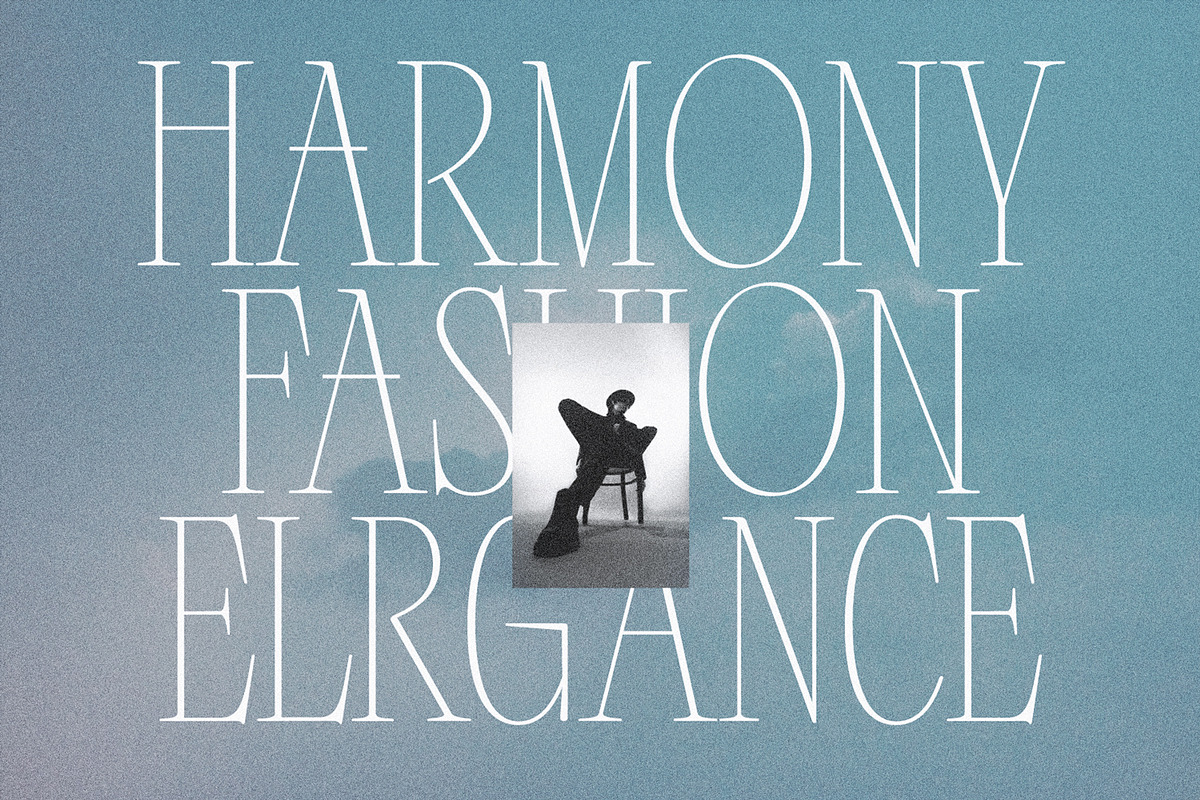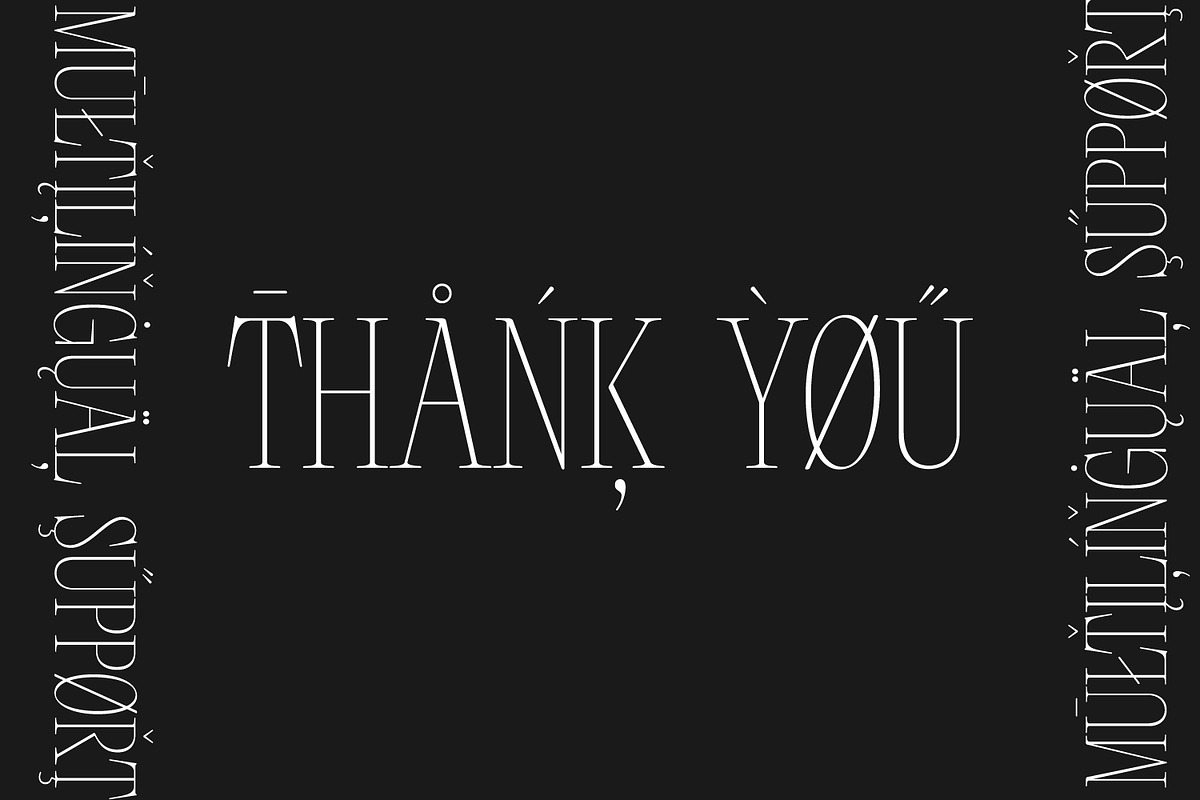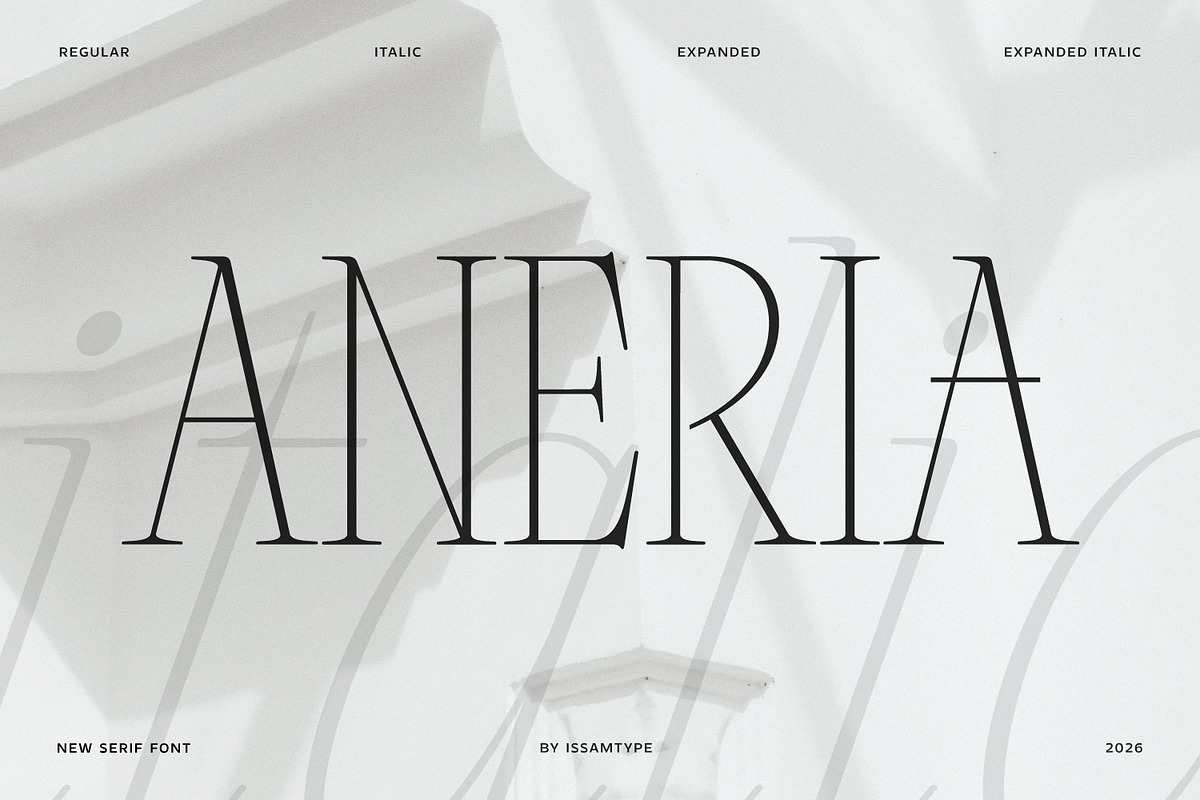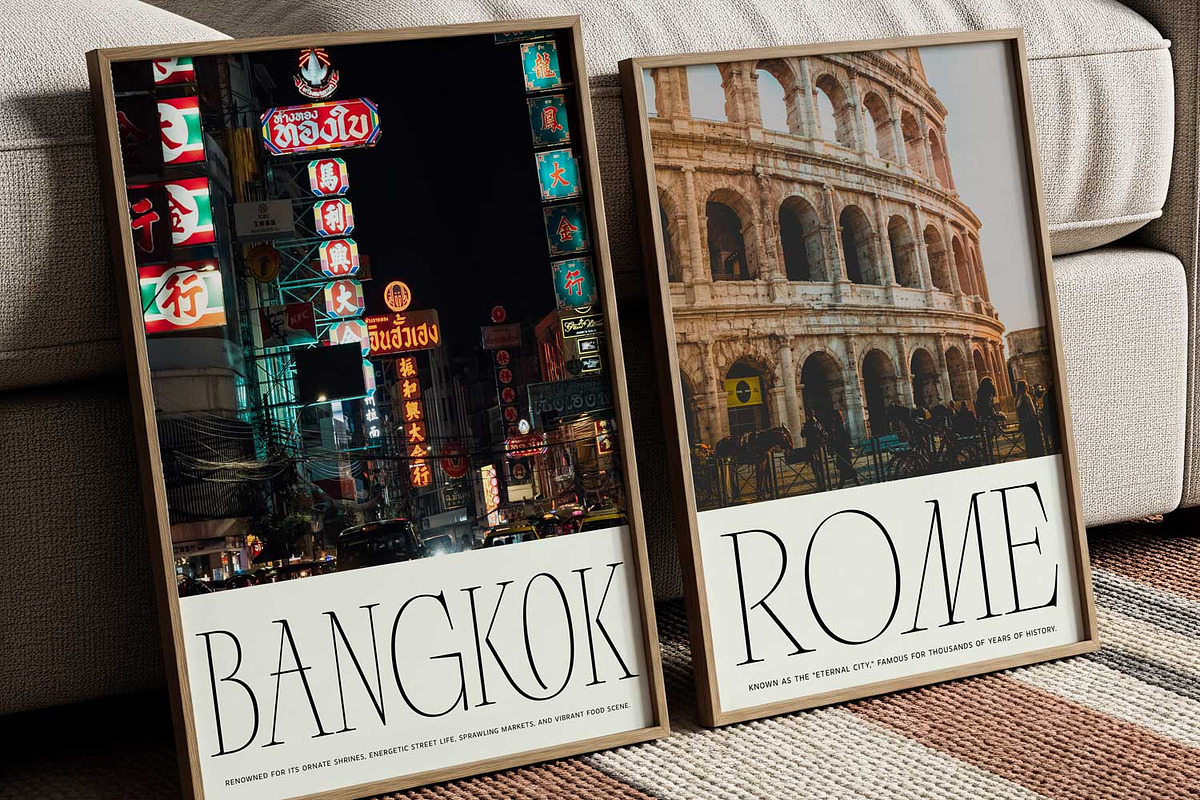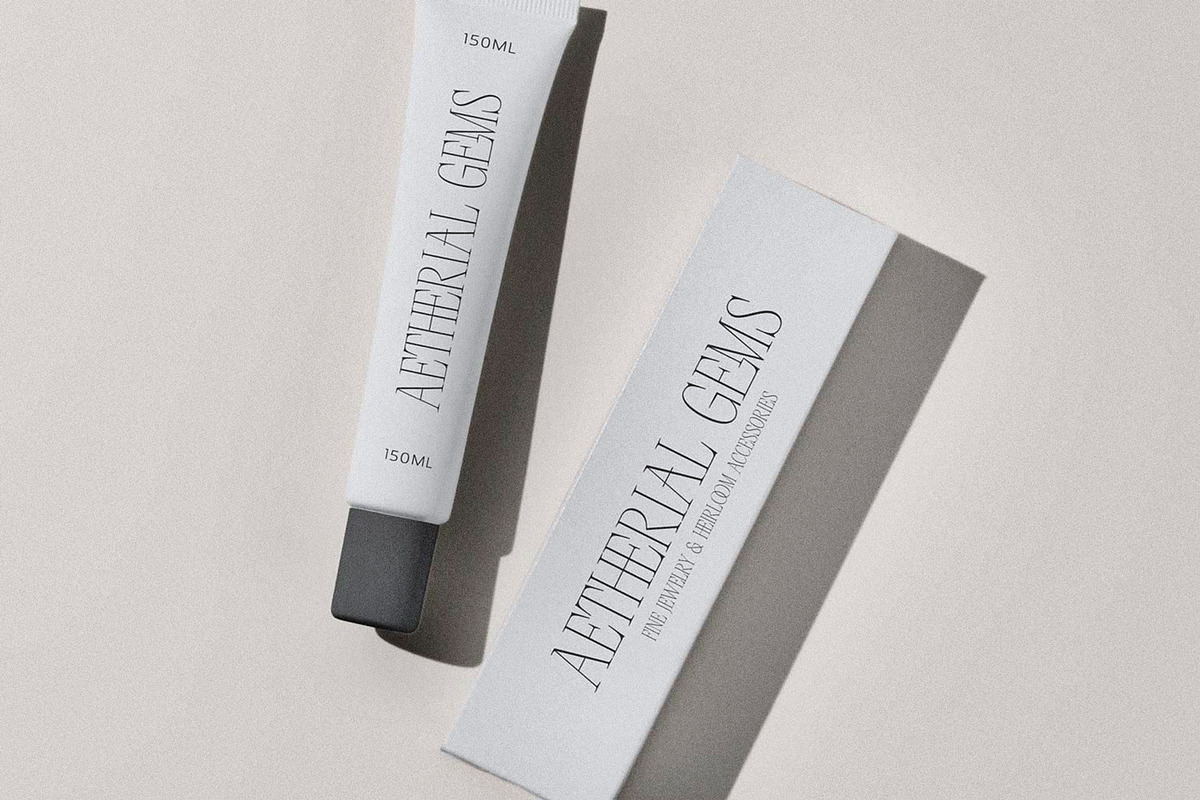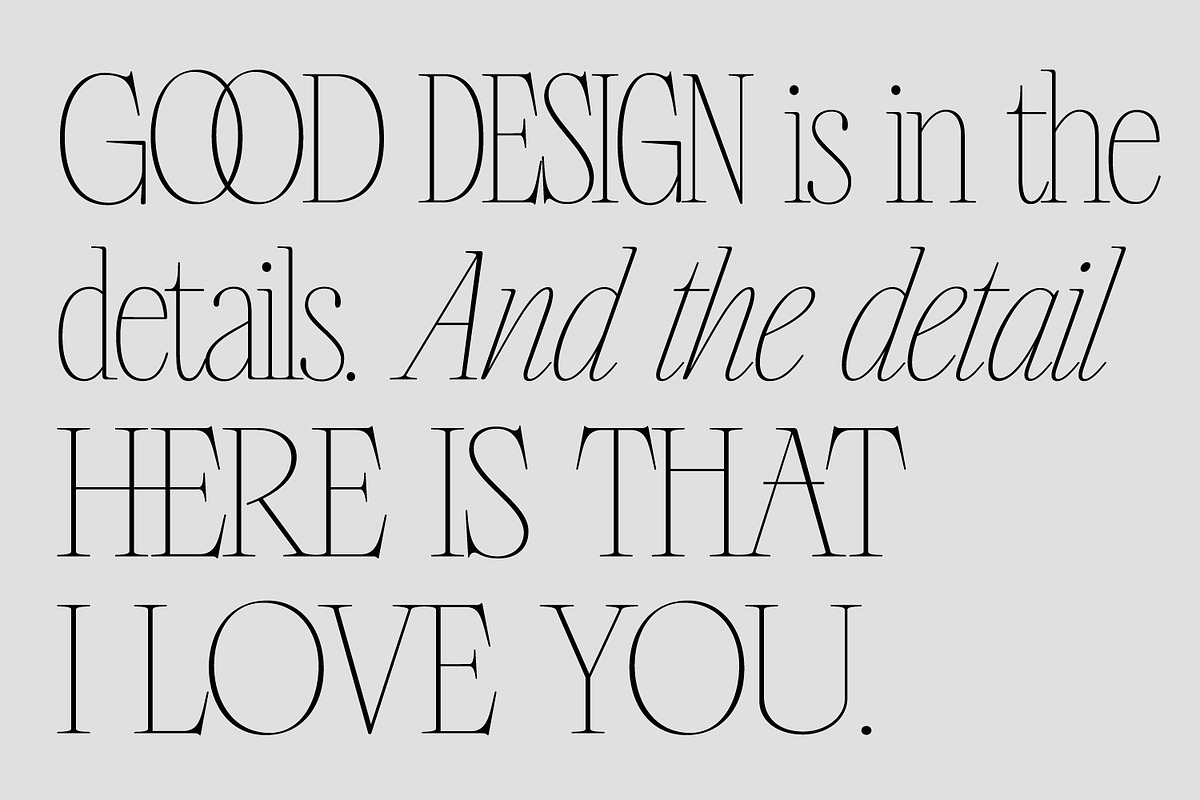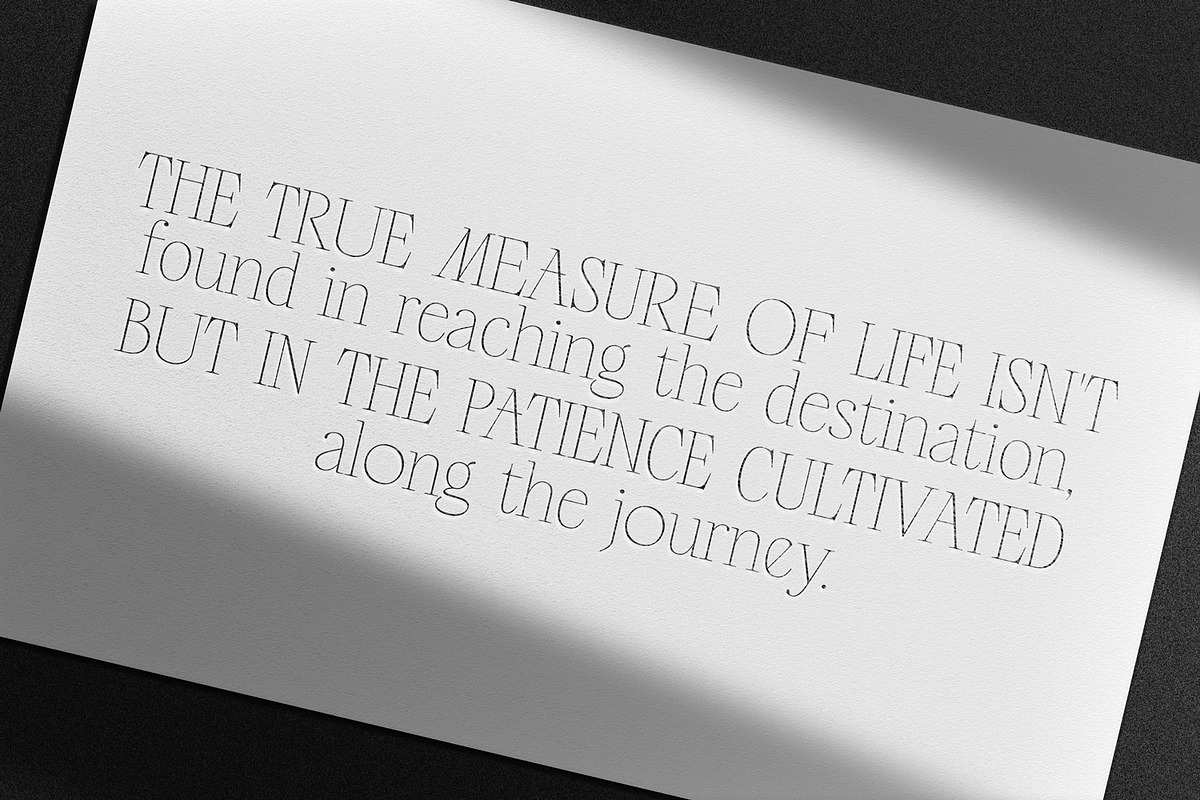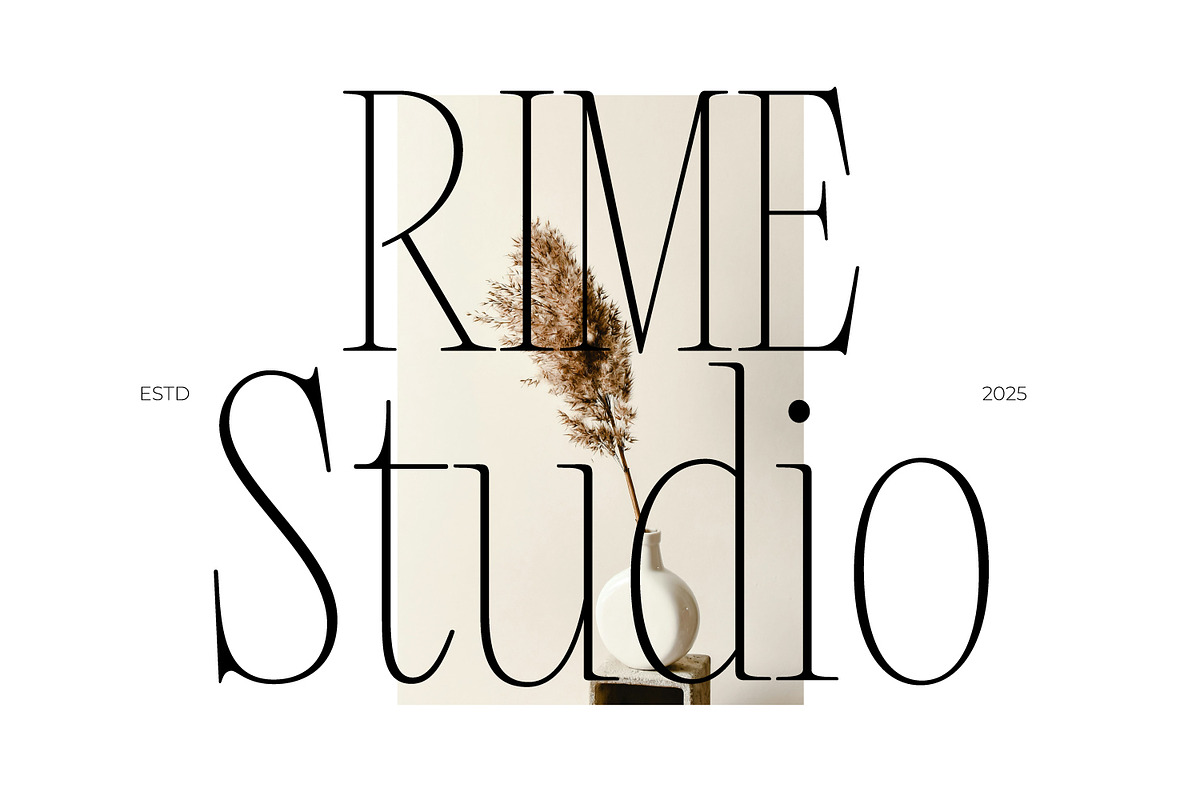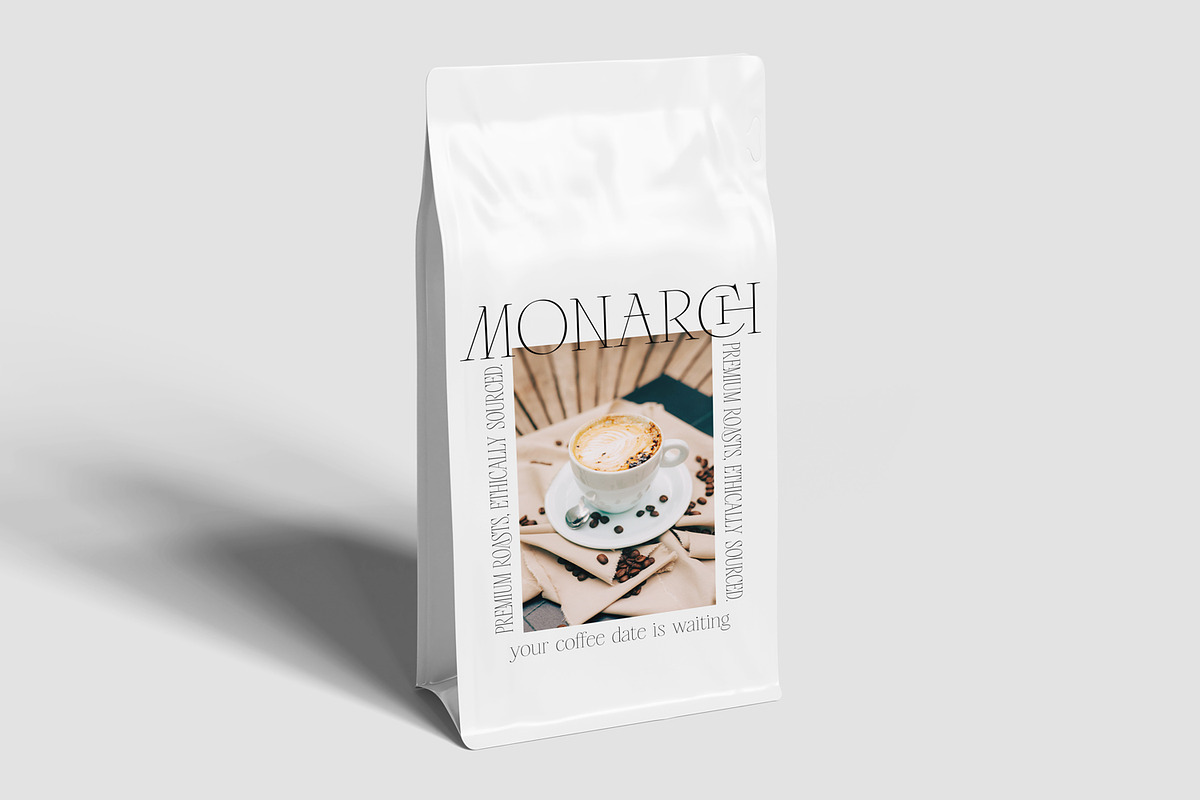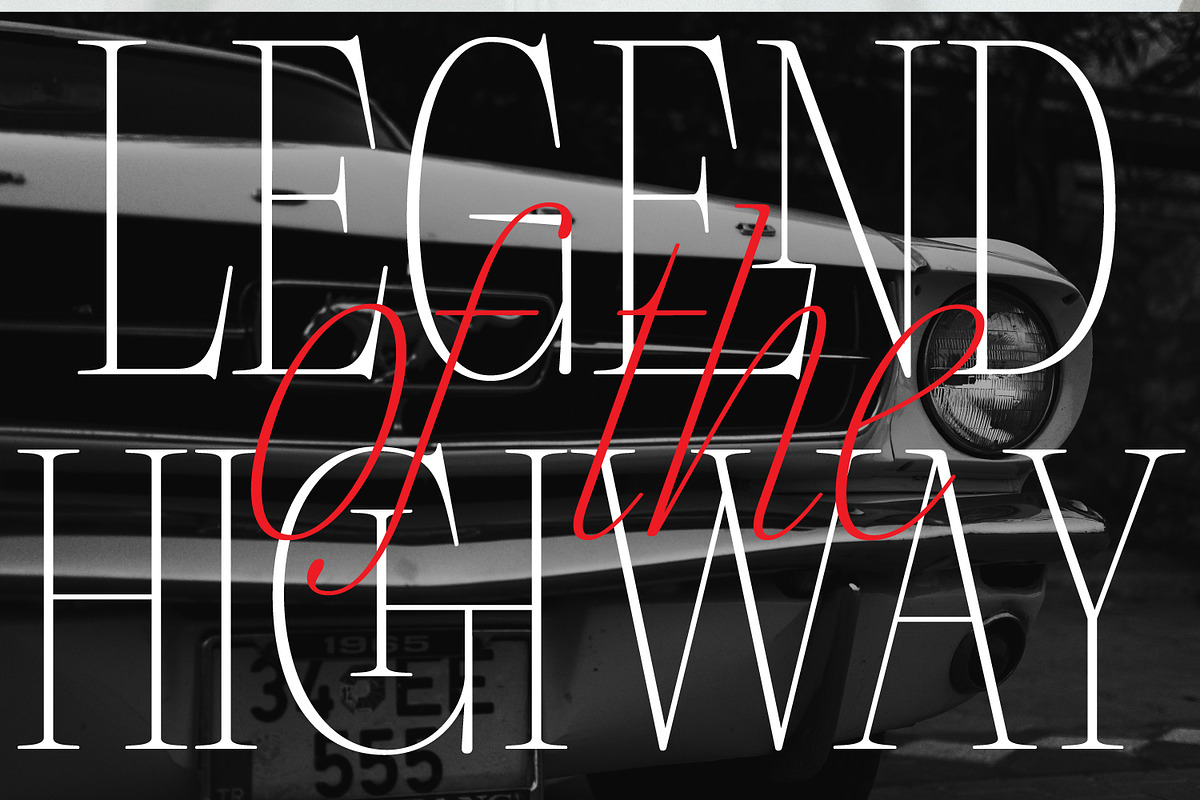
ANERIA — Editorial Serif
Aneria is a strikingly refined serif family that effortlessly balances minimalist elegance with bold, contemporary luxury. Inspired by the sharp, ultra-high-contrast typography of high-end fashion and moody studio branding, it brings an instant sophisticated look to any modern layout.
With four distinct styles — Regular, Italic, Expanded, and Expanded Italic — Aneria is designed to elevate your cinematic titles, magazine layouts, and studio identities.
Uppercase, Lowercase & Multilingual Support
Numbers, Punctuation & Symbols
Stylistic Alternates & Ligatures